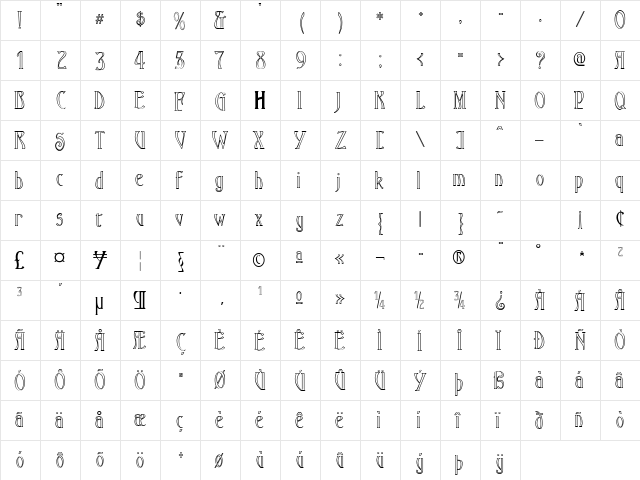
Ambrosia Outline
Design Context for Ambrosia Typeface
Ambrosia is built around its visual character rather than neutral utility — its distinctive forms are designed to make an impression at display sizes.
Font Pairing: Pair with a clean neutral sans-serif for body copy to let Ambrosia's character lead without overwhelming the composition.
Pro Tip: Treat Ambrosia as the centrepiece of your typographic hierarchy. One strong heading set in a decorative face can carry an entire layout.